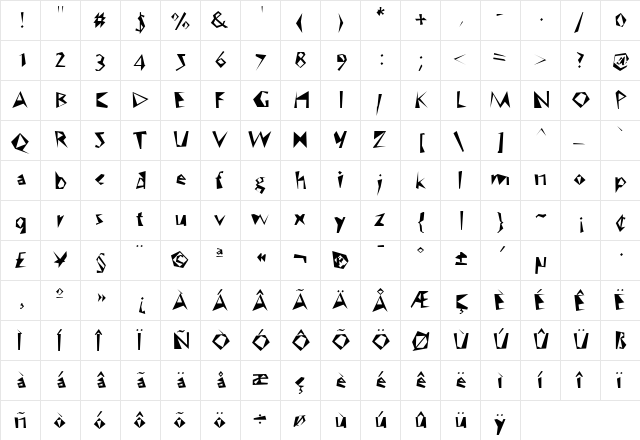
WC Speed Bta Regular
| Foundry | WC Fonts |
| Designer | WC Fonts |
Design Context for WC Speed Bta Typeface
WC Speed Bta is a composed and adaptable typeface that performs quietly and consistently across a wide range of design contexts.